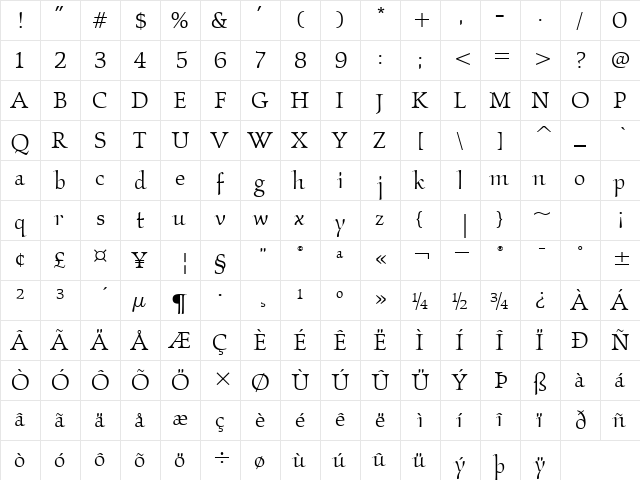
KallosITC TT Book
Design Context for KallosITC TT Typeface
KallosITC TT takes a measured approach to typography — its balanced proportions and neutral character make it a reliable workhorse for both digital and print work.